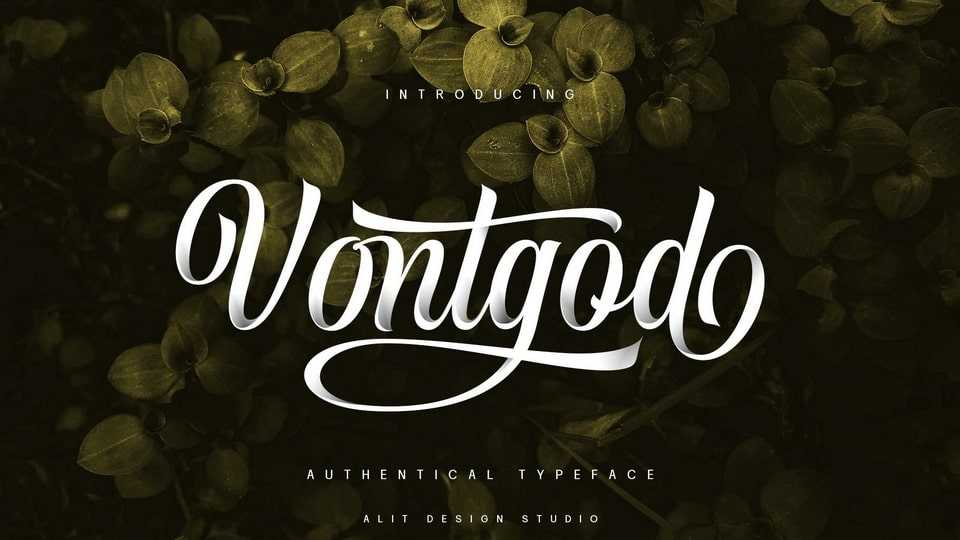
Download Vontgod font, an elegant and charming script inspired by the classic handwriting in the 1800 era and combined with modern trends. The details of the Vontgod font shape are very subtle and flow creating unique and gorgeous curves.